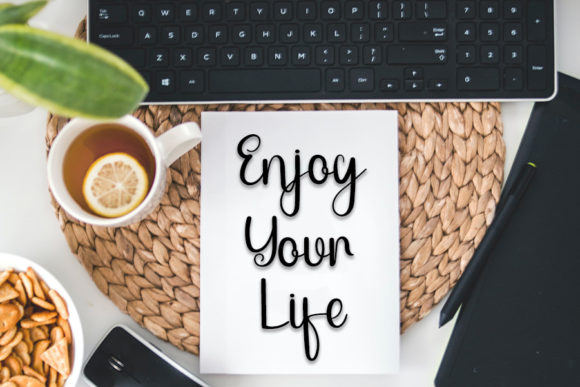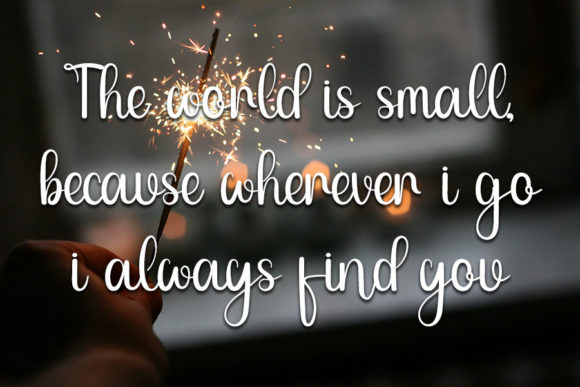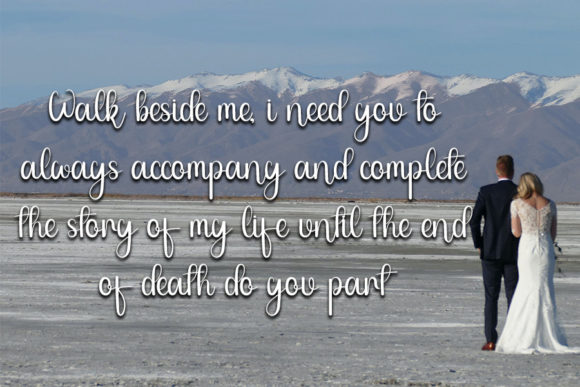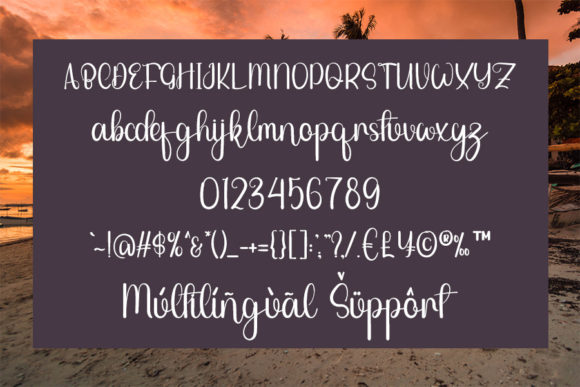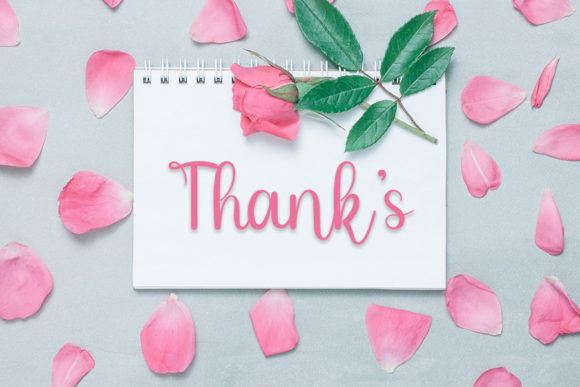
The Quest for the Perfect Font: Discovering Fantasy Beach
Ah, the eternal struggle of finding the perfect font for your design project. I recall a particularly frustrating moment when I was working on a client’s branding materials. The brief was simple: create a warm, inviting aesthetic that screamed “relaxing getaway.” Sounds easy, right? But as I scrolled through font after font, nothing seemed quite right. That was until I stumbled upon Fantasy Beach, a stylish handwritten font that instantly transported me to a serene coastal paradise.
First Impressions: A Love Letter to Fantasy Beach
Fantasy Beach is a masterpiece of modern calligraphy, with a balanced and varied design that’s neither too thin nor too thick. This font is a timeless classic with a contemporary twist, making it perfect for designers, crafters, and creative hobbyists alike. Here’s what I love about it:
• ✨ Elegant, flowing lines that evoke a sense of sophistication
• ✅ Perfect balance of thick and thin strokes for optimal readability
• 💫 Support for multiple languages and OpenType features
• 🎨 Versatile and adaptable to various design contexts
The Not-So-Perfect Truth: A Few Quirks
No font is perfect, and Fantasy Beach is no exception. Here are a few minor limitations to keep in mind:
• 🤔 Some users might find the font a tad too ornate for very small text sizes
• ⚠️ Limited availability of certain special characters
The Story Behind Fantasy Beach
Rumor has it that Fantasy Beach was inspired by long, sunny days spent by the ocean. The designer, fueled by coffee and sea breeze, aimed to capture the essence of a timeless coastal getaway. While we can’t confirm the exact story, one thing is certain: Fantasy Beach is a masterpiece of modern calligraphy.
Font Name Fantasy Beach Font
Author Inermedia STUDIO
Is Fantasy Beach suitable for body text? While Fantasy Beach is beautiful, it’s best suited for headings and titles. For body text, consider a more traditional font for optimal readability.
Does Fantasy Beach support non-English languages? Yes, Fantasy Beach supports multiple languages, including those with non-ASCII characters.